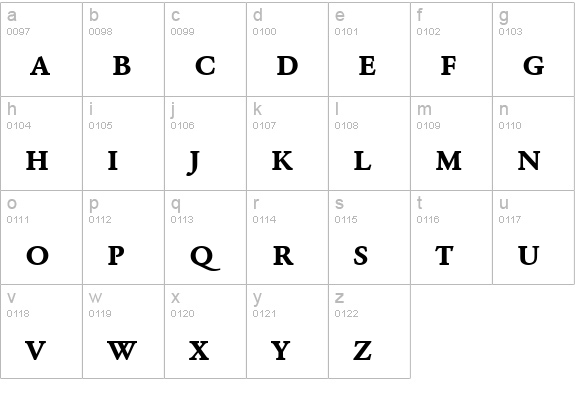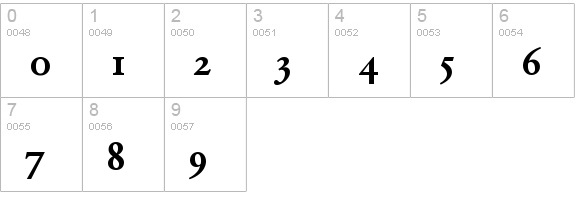
Garamond BE Medium Small Caps & Oldstyle Figures Font Details
Garamond BE Medium Small Caps & Oldstyle Figures is a balanced, medium-weight variant in the Garamond typeface family \xE2\x80\x94 well suited to sub-headlines, navigation, and balanced editorial work.
Garamond BE Medium Small Caps & Oldstyle Figures font is a timeless and elegant typeface that effortlessly combines a classic aesthetic with a touch of modernity. With its balanced proportions, refined letterforms, and exquisite details, this font captures the essence of traditional typography while adding a contemporary twist. The small caps and oldstyle figures add a touch of sophistication to any design, making it perfect for a wide range of applications including headlines, logos, invitations, and editorial layouts. The small caps provide a harmonious balance between uppercase and lowercase letters, while the oldstyle figures add a sense of vintage charm to your projects. Garamond BE Medium Small Caps & Oldstyle Figures font is a versatile typeface that can adapt to various design styles and themes. Whether you're working on a classic branding project, a minimalist website, or a vintage-inspired poster, this font will elevate your design and give it a distinctive and refined look. The best part is that Garamond BE Medium Small Caps & Oldstyle Figures font is available for free! You can easily download it at FontsMarket.com, a trusted source for high-quality fonts. With its open license, you can freely use this font for personal projects, commercial ventures, or any creative endeavor you have in mind. Don't miss out on this opportunity to enhance your designs with the timeless beauty of Garamond BE Medium Small Caps & Oldstyle Figures font. Download it now from FontsMarket.com and let your creativity soar.